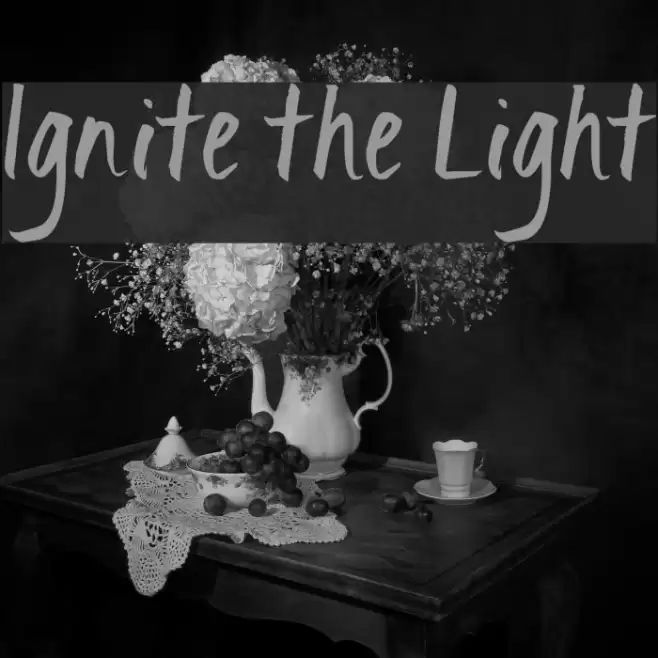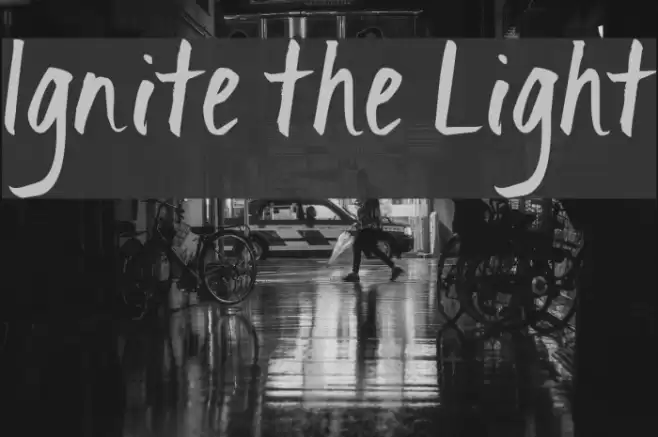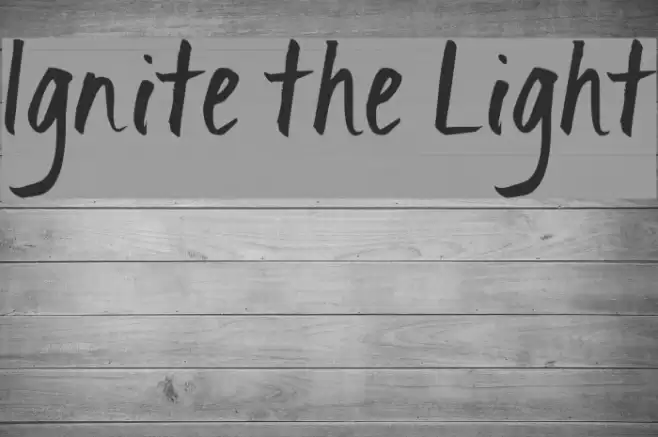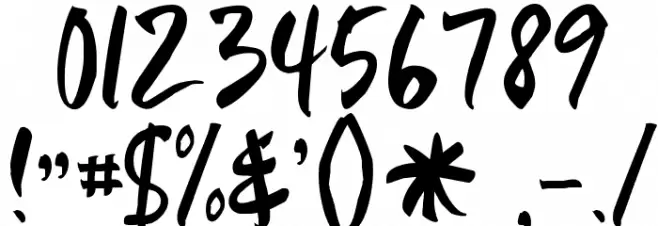
Ignite the Light Font
Ignite the Light Description
This font exudes a dynamic and energetic vibe with its bold, brush-like strokes. The letters are slightly slanted, giving a sense of movement and fluidity. The uppercase and lowercase letters maintain a consistent style, with a playful yet assertive appearance. The numbers and special characters follow the same lively design, ensuring a cohesive look across all characters. The font's hand-drawn quality adds a personal touch, making it ideal for projects that require a human element or a creative flair.
A bold, brush-style font with dynamic, hand-drawn strokes from Uncategorized fonts.
- Proposed Projects: Ideal for branding, posters, social media graphics, and creative projects that require a bold, personal touch.
- Overall Style: Modern, Decorative